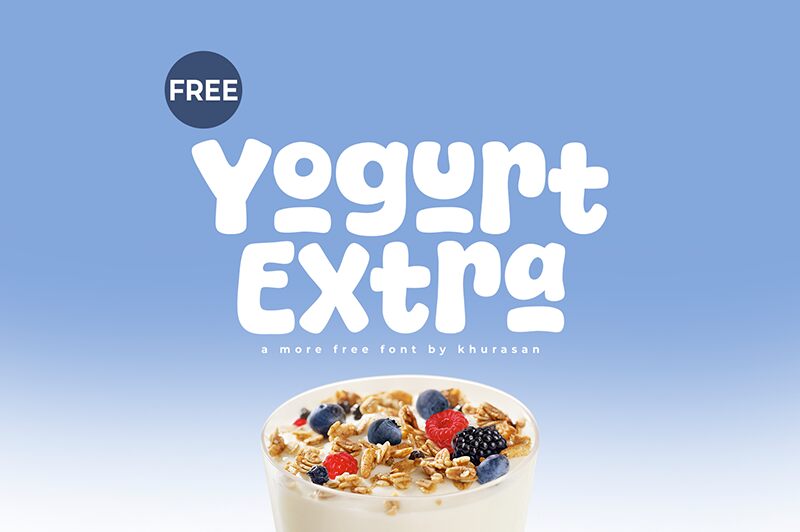
Yogurt Extra font, crafted by Khurasan, is an engaging display font characterized by its bold, cartoonish style. Its eye-catching appearance features playful curves and exaggerated forms, making it ideal for projects that demand a lively and whimsical touch.
This free font is perfect for children’s books, posters, and branding that seek to convey fun and creativity. With its unique stylistic flair, Yogurt Extra can instantly capture attention in any design context.